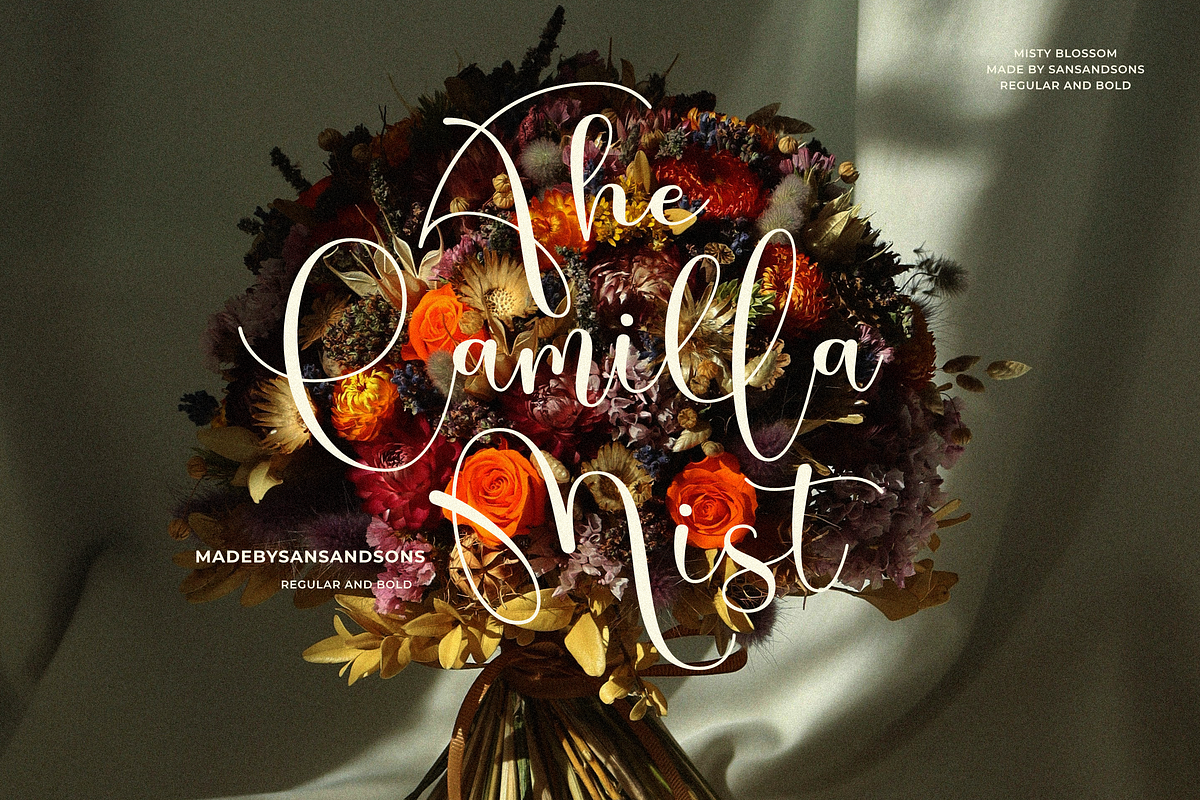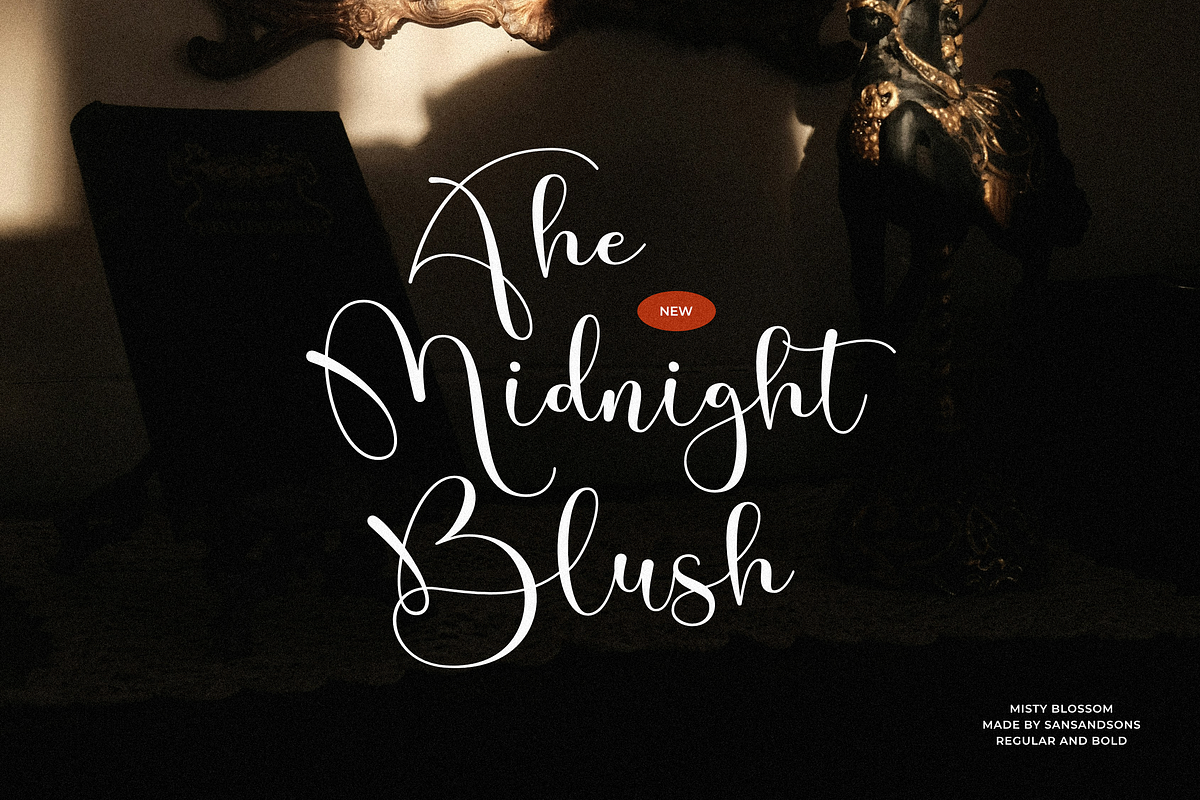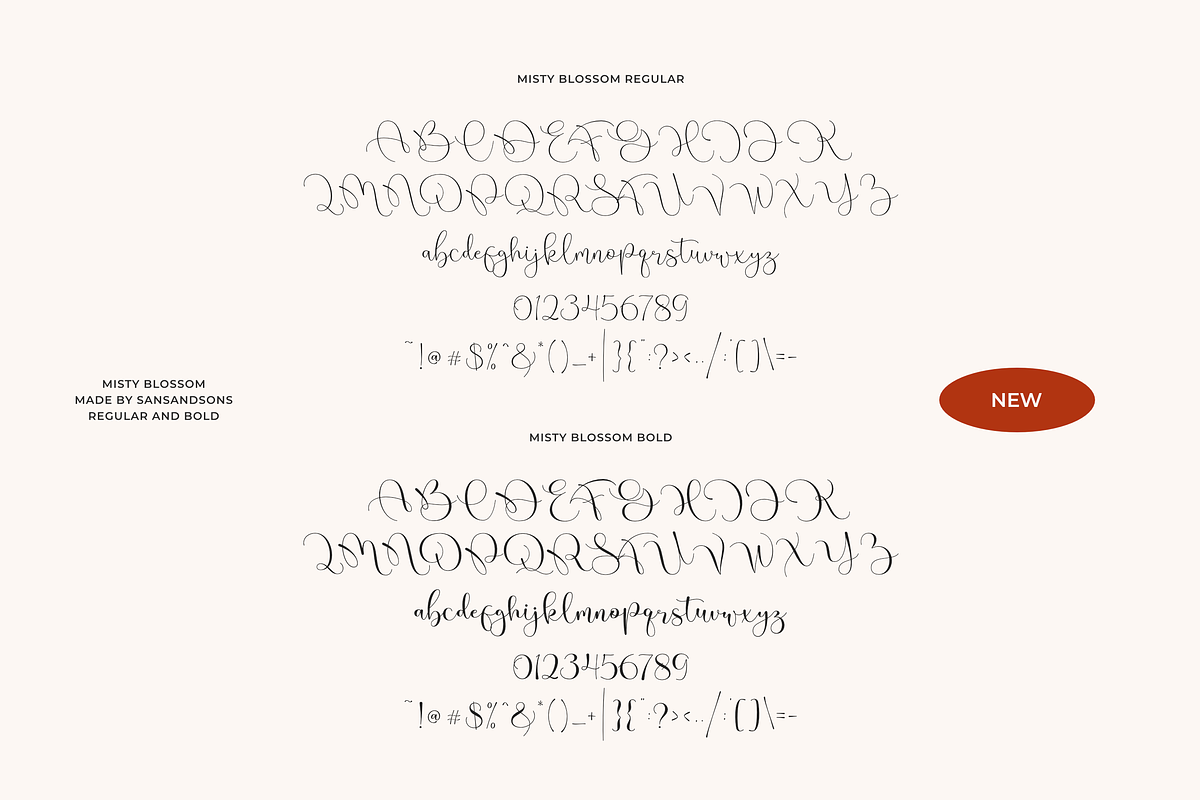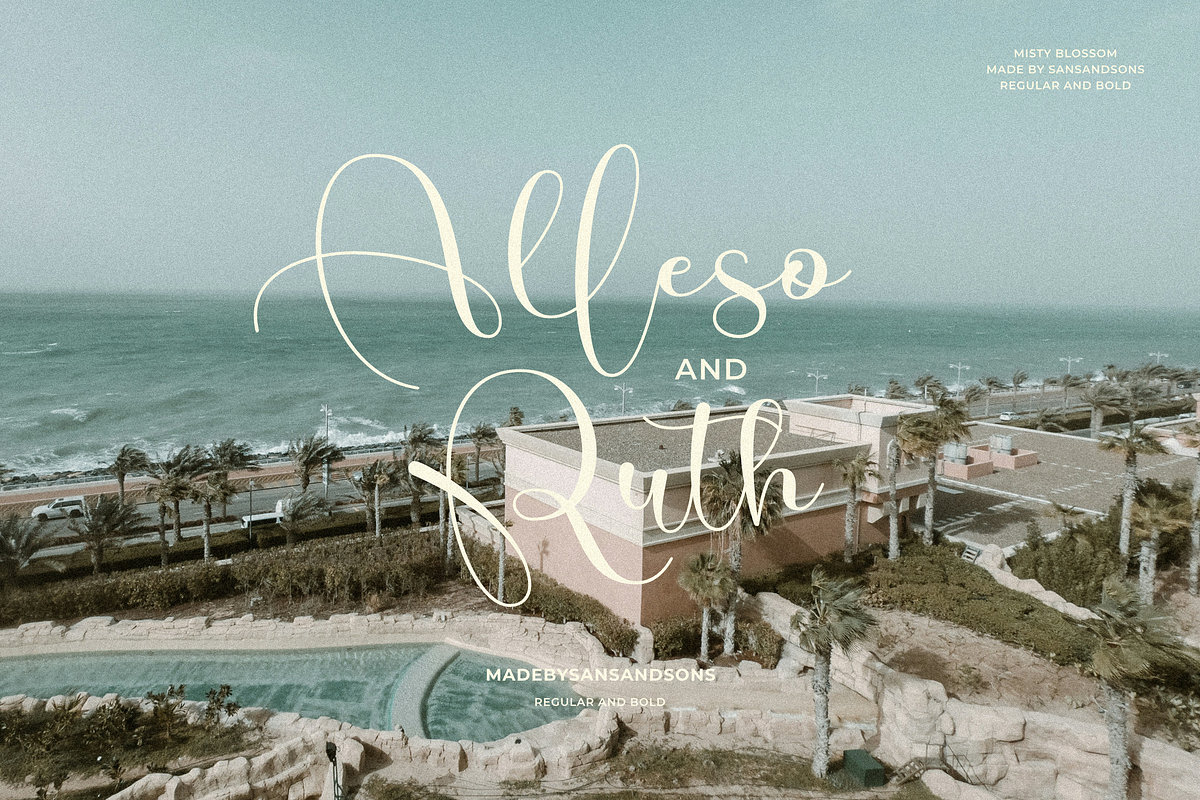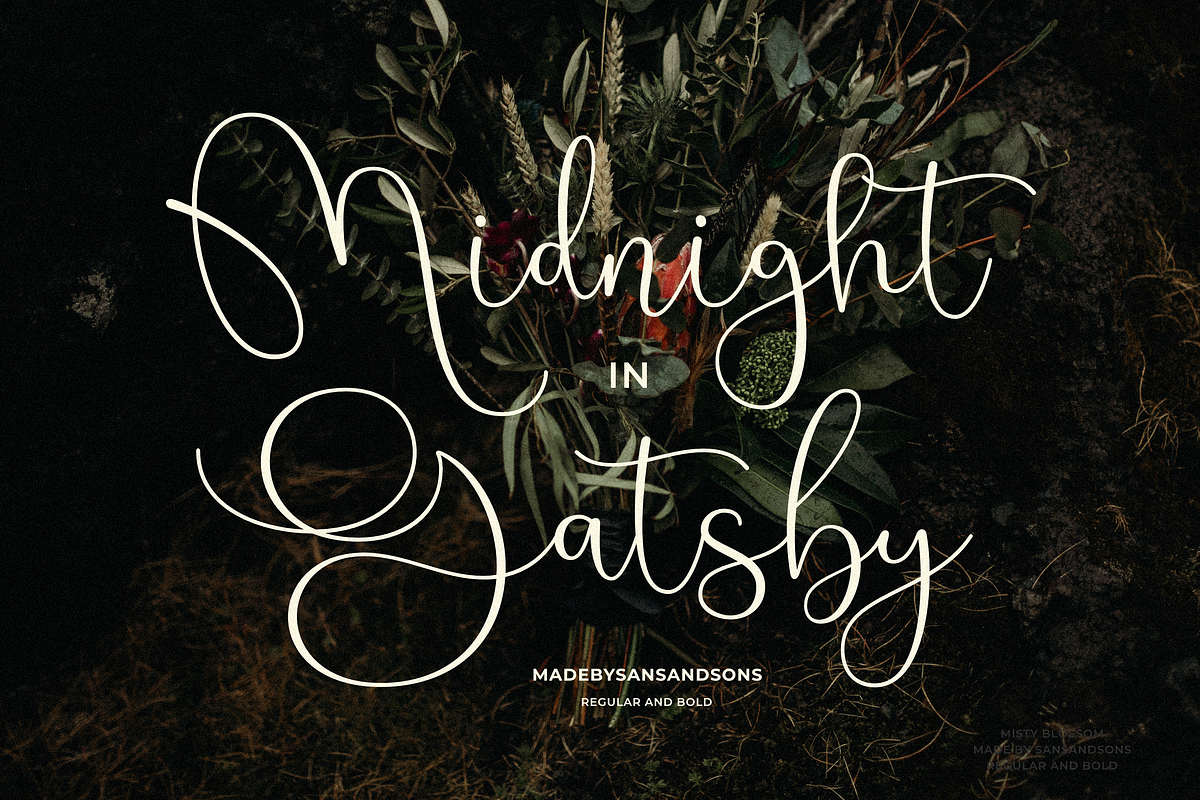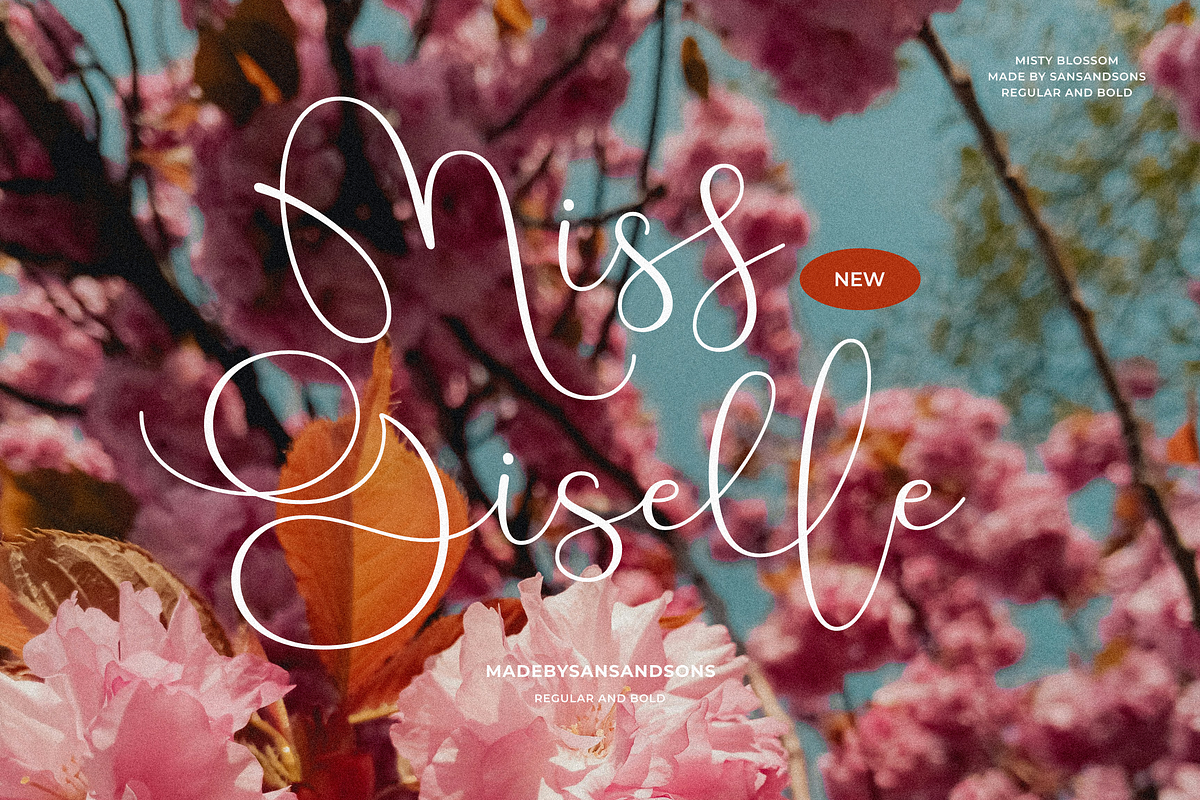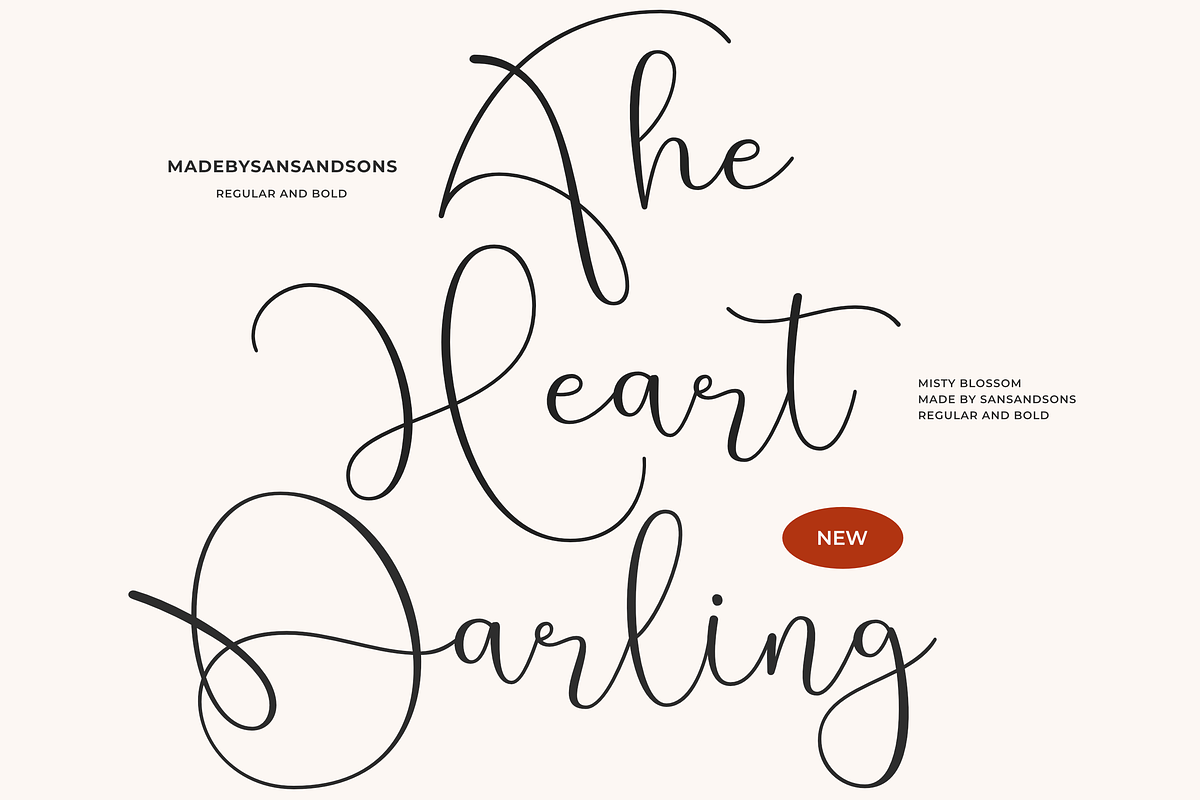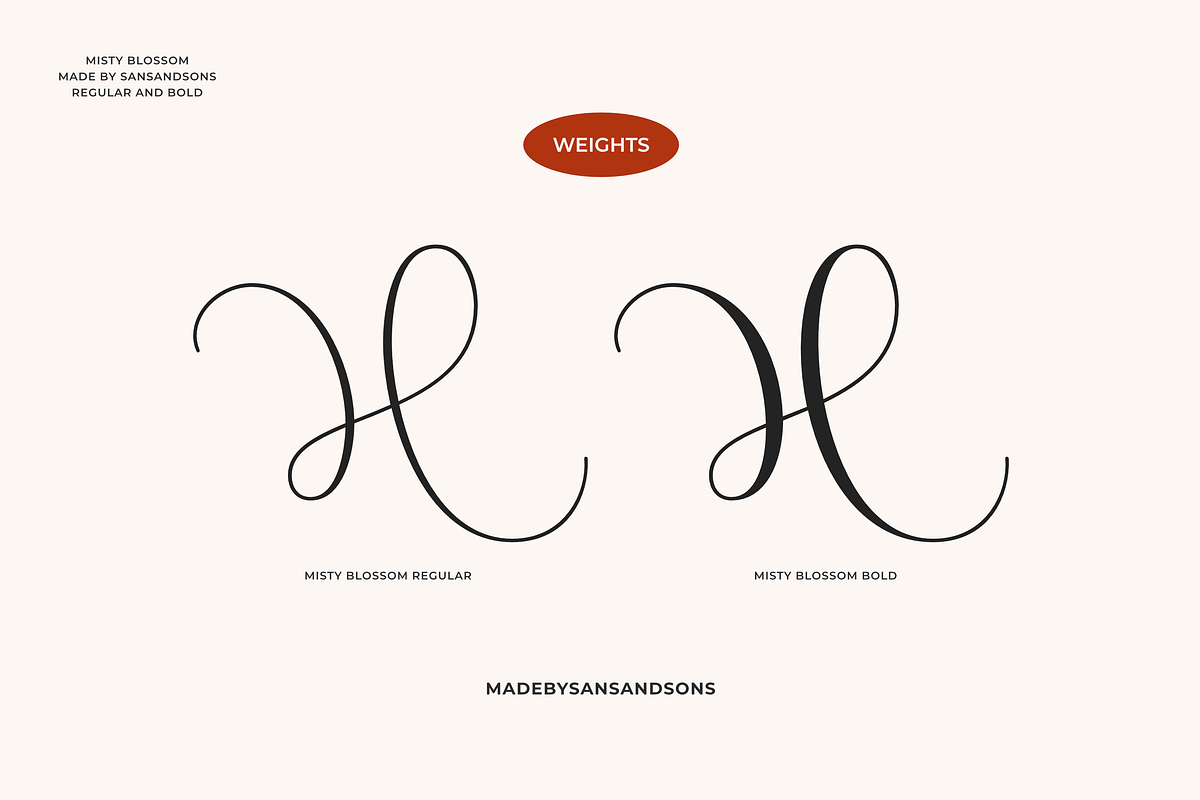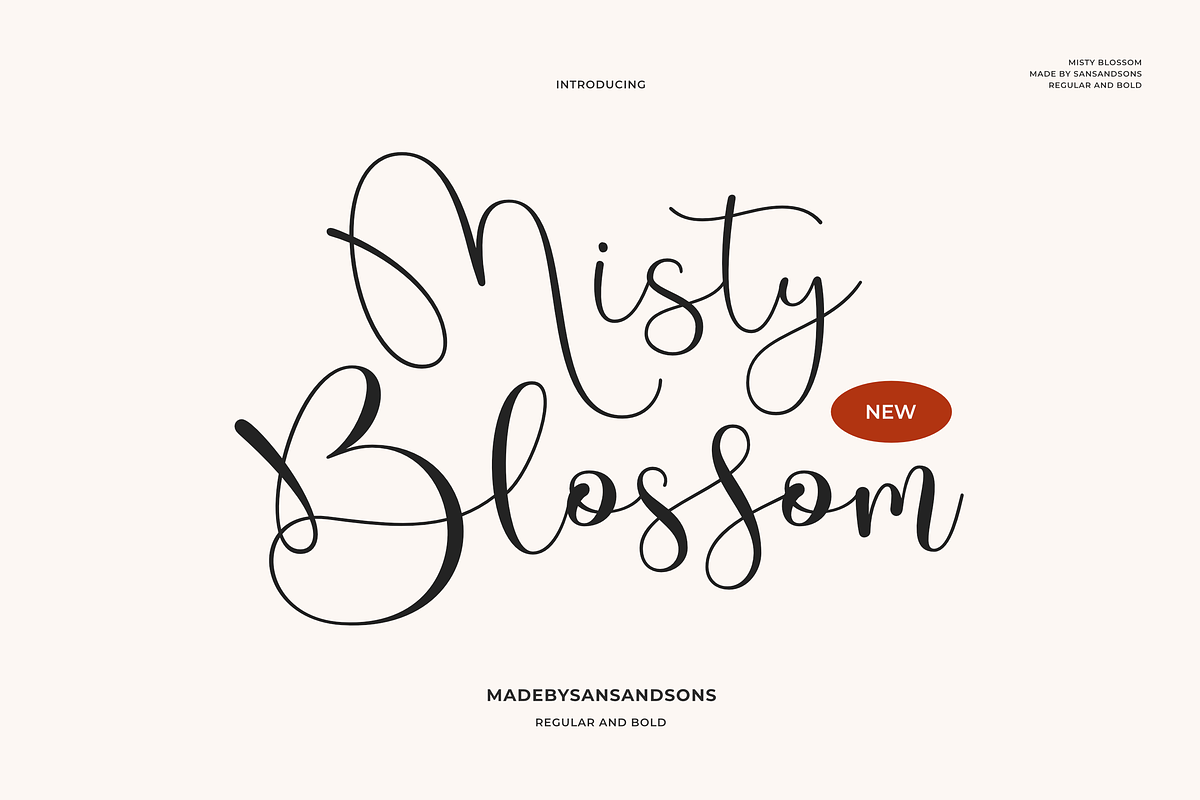
Misty Blossom
Say hello to Misty Blossom, a dreamy script font duo designed to sprinkle a little magic and elegance into your creative world.
With its flowing curves, delicate strokes, and playful personality, Misty Blossom captures the sweet spot between effortless charm and modern sophistication. Available in both Regular and Bold, it’s perfect for creating soft, stylish designs — from branding to invitations, social media graphics, and more.
To make your words look even more natural and seamless, Misty Blossom also comes with handy ligatures that add a beautiful handwritten touch.
- Handwritten-style script with a fun, elegant vibe
- Two styles: Regular & Bold
- Natural flowing lines with built-in ligatures
- Uppercase & lowercase + multilingual support
Bring your ideas to life with Misty Blossom — a font made for dreamers, creators, and storytellers.